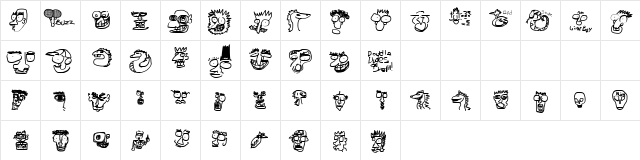
Cartoon Connection Regular
Design Context for Cartoon Connection Typeface
Cartoon Connection has an approachable, lighthearted character — its loose, expressive forms are well-suited to children's content, casual branding, and fun-first design.
Font Pairing: Pairs well with a rounded or humanist sans for body copy, maintaining the friendly tone without relying on Cartoon Connection to carry extended reading.
Pro Tip: Use Cartoon Connection at larger display sizes where its expressive character can land. Pair with a clean, simple sans for body copy to maintain readability.